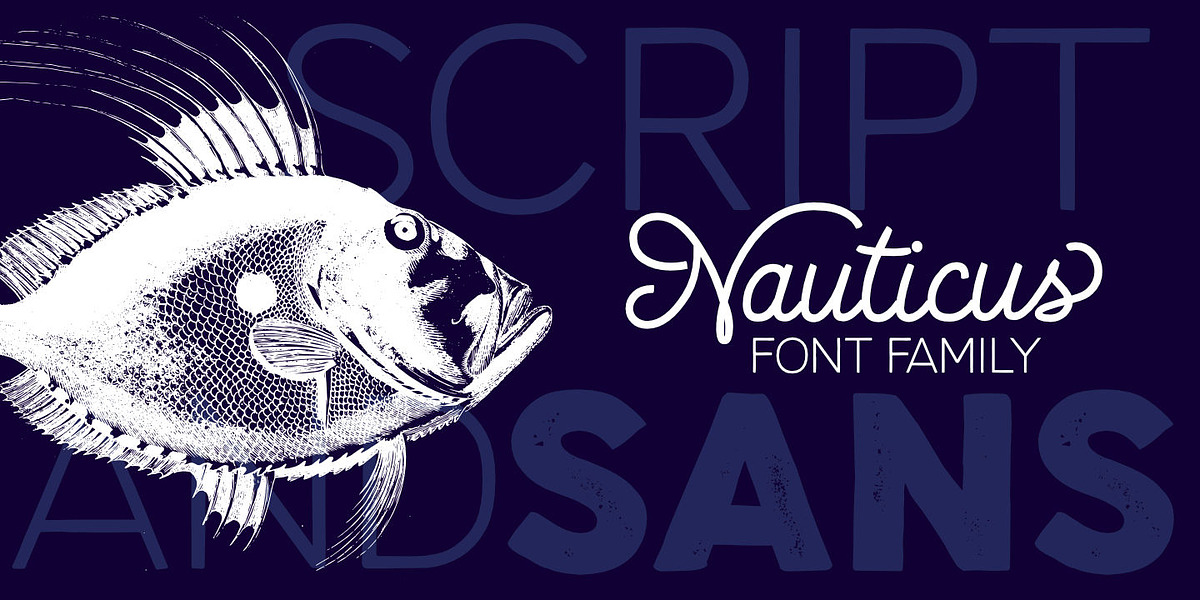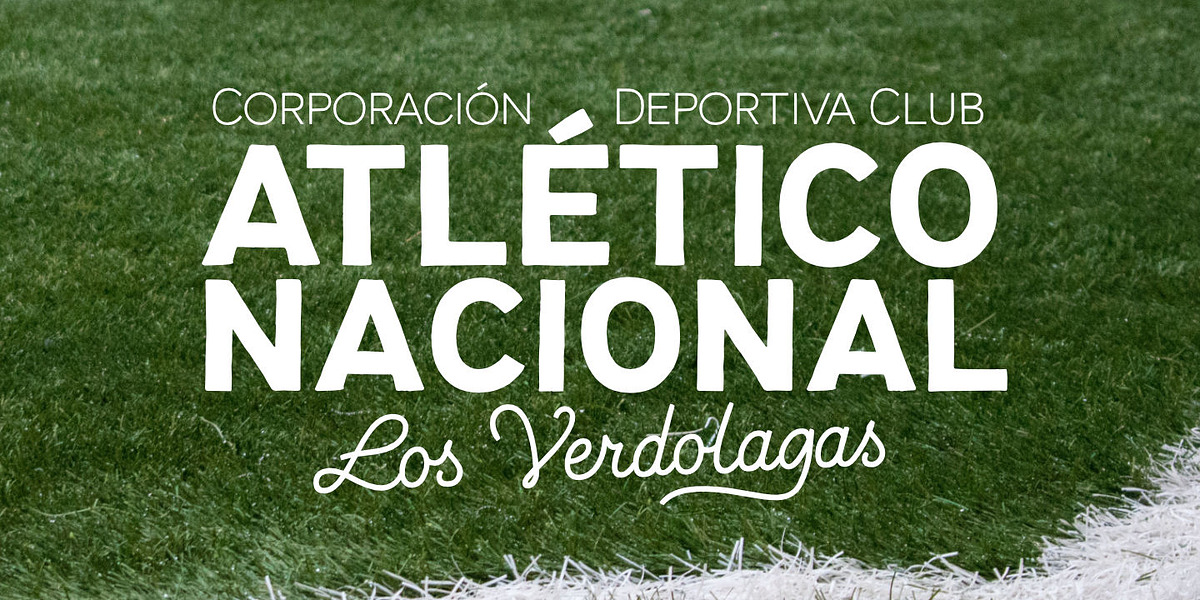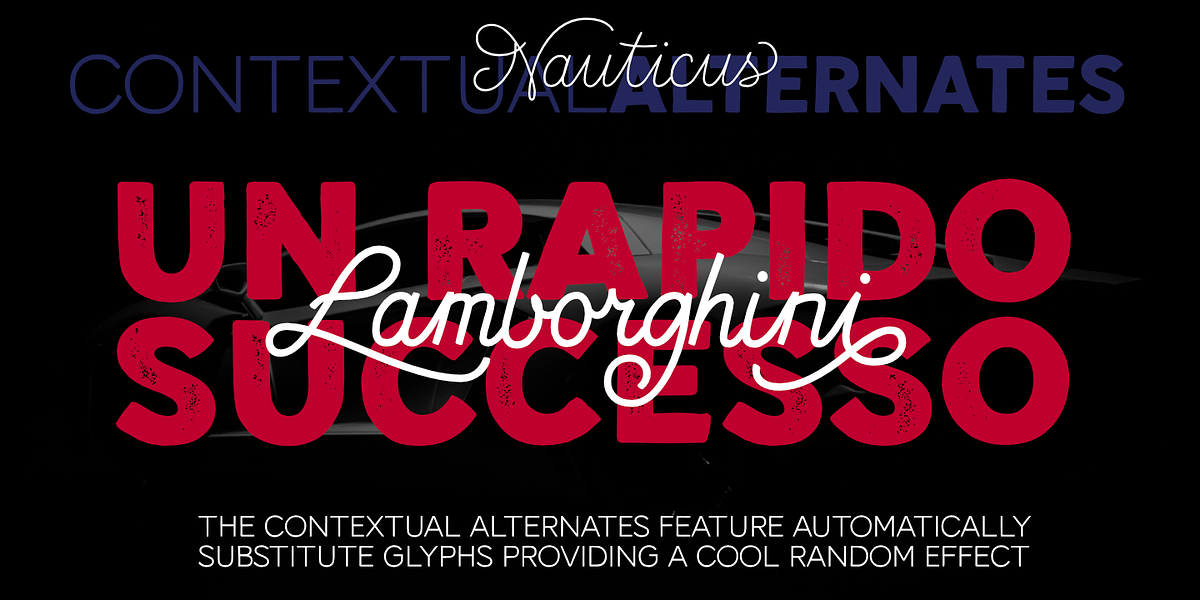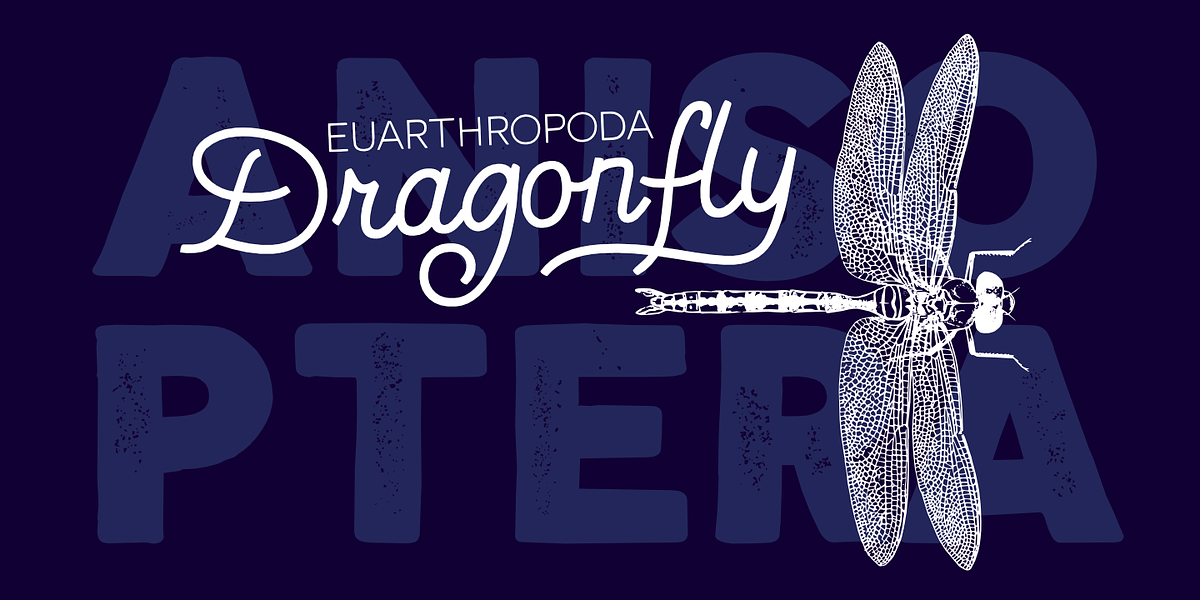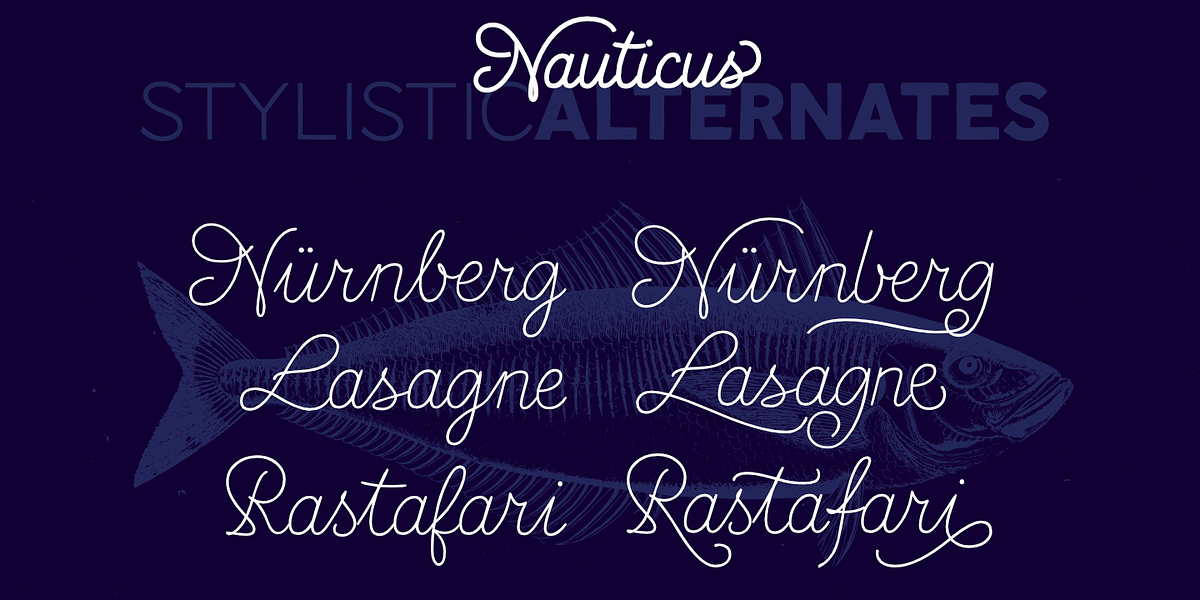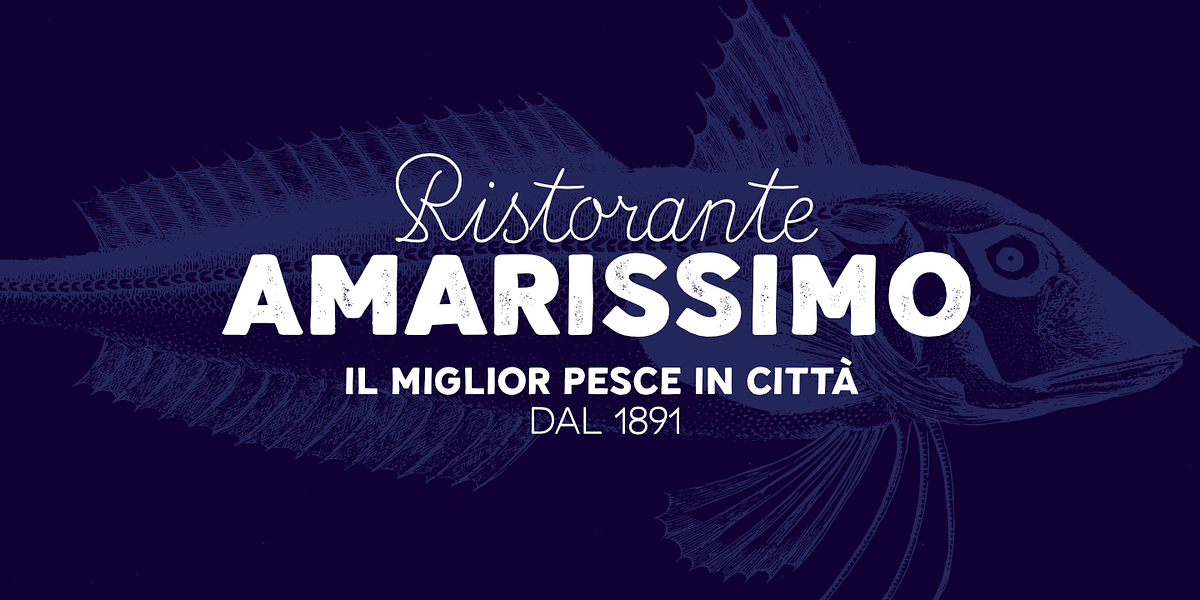
Nauticus
Nauticus Sans is a hand-drawn sans serif font that offers a casual and playful aesthetic. It features four weights: Thin, Regular, Bold, and Bold Press. A distinctive feature of Nauticus Sans is its inclusion of three alternate glyphs for every lowercase letter, which automatically cycle in OpenType-compatible applications to create a natural, handwritten effect.